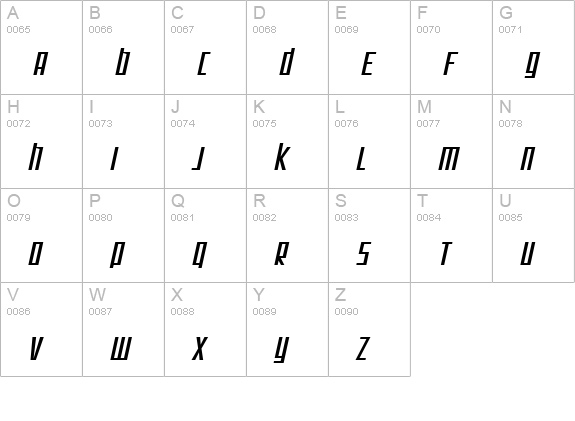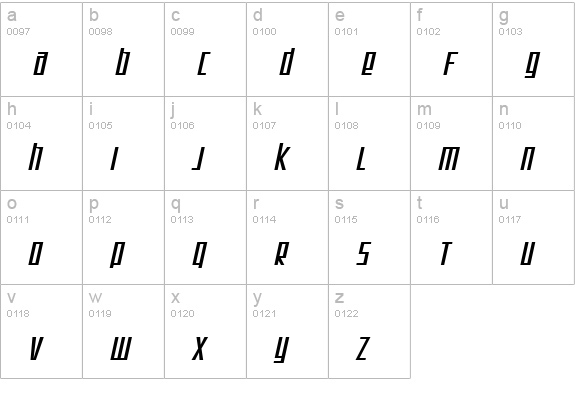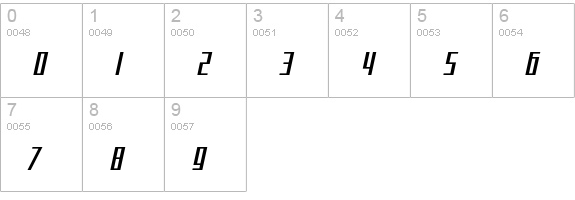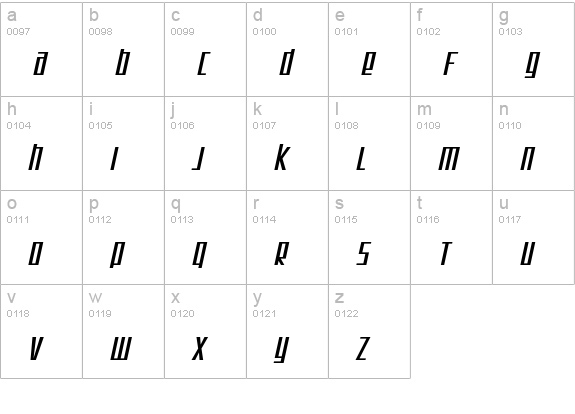
SF Square Root Oblique Font Details
SF Square Root Oblique is a distinctive, italic variant in the SF typeface family \xE2\x80\x94 well suited to design and typography projects.
SF Square Root Oblique is a dynamic and futuristic font that is sure to make your designs stand out. With its bold and slanted letterforms, this font exudes confidence and modernity. Whether you're designing a website, creating a poster, or crafting a logo, SF Square Root Oblique will bring a unique and eye-catching touch to your project. This font is perfect for any project that requires a touch of elegance and sophistication. Its clean lines and sleek curves give it a polished and professional appearance. The oblique style adds a sense of movement and energy, making it perfect for designs with a sense of forward motion. One of the best things about SF Square Root Oblique is that it is freely available to download at FontsMarket.com. This means that you can add this stunning font to your collection without breaking the bank. It's a great option for designers who want to have access to high-quality fonts without having to spend a fortune. SF Square Root Oblique is incredibly versatile and can be used for a wide range of design projects. Its unique style makes it ideal for everything from branding and packaging to editorial design and advertising. Its legibility and readability make it a great choice for both headlines and body text, ensuring that your message gets across loud and clear. So why wait? Download SF Square Root Oblique today and take your designs to the next level. With its sleek and modern aesthetic, this font is sure to make a lasting impression. Don't miss out on the opportunity to add this incredible font to your collection. Head over to FontsMarket.com and get your hands on SF Square Root Oblique for free!